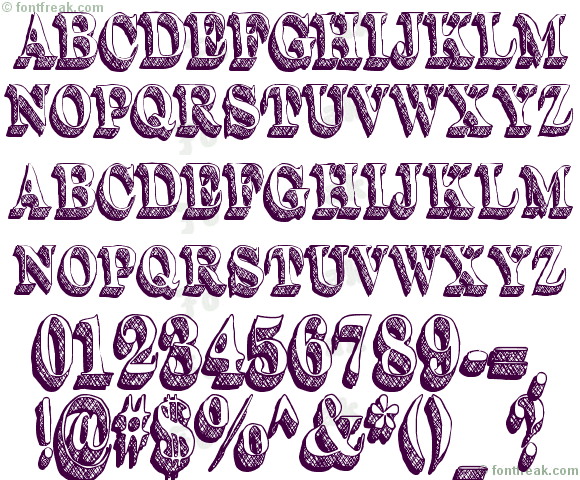
About Dullard
Dullard, designed by Tom Ledin in 2010, is a distinctive display font that captures attention with its playful and slightly rustic aesthetic. This freeware typeface features bold, thick strokes that give it a strong presence while maintaining an approachable character. The unique letterforms exhibit a slightly uneven edge, adding a touch of whimsy and charm. The spacing is generous, allowing each letter to breathe, which enhances readability and visual appeal. Dullard's decorative elements, such as its exaggerated serifs and varied stroke weights, convey a sense of fun and creativity that sets it apart from more conventional fonts.
This font is particularly well-suited for various creative projects. It excels in applications like restaurant menus, where its engaging style can enhance the dining experience by reflecting the atmosphere of the establishment. Additionally, Dullard is ideal for crafting eye-catching movie posters that demand attention, as well as vibrant promotional materials for events and festivals. Content creators will find it effective for social media graphics, giving their posts a distinctive flair that resonates with audiences. Graphic designers and small business owners will appreciate its versatility in branding projects, packaging design, and more.
The target audience for the Dullard font includes graphic designers, small business owners, and content creators who seek to infuse their work with personality and originality. This font stands out because it combines artistic flair with practicality, making it an excellent choice for those looking to make a statement without sacrificing readability. With the Dullard font free download, you can easily integrate this unique typeface into your next project, elevating your designs and capturing the essence of creativity.